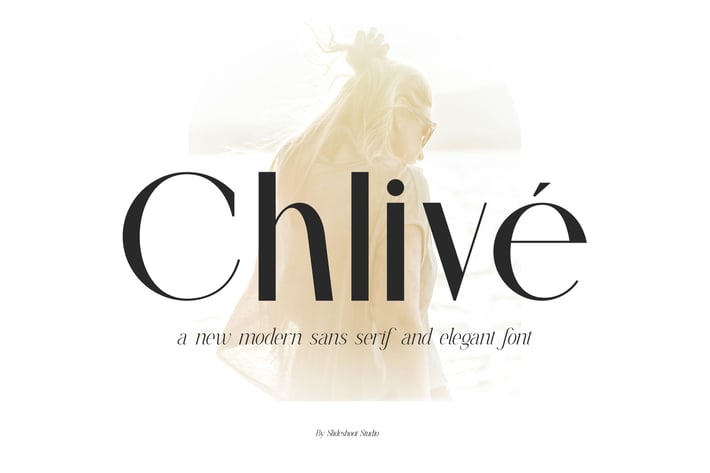
Chlive || Modern Sans Serif Font
Chlive is a carefully crafted, balanced, refined, elegant and stylish sans serif font. It grabs attention and beautifies any design. It is perfect to be combined with invitation card designs, company logos, movie titles, movie names, business cards, book titles, brand names and various other designs. Chlive is a refined sans serif font that exudes sophistication and cohesion. Its stylish alterations and ligatures make this font a perfect partner for any project.